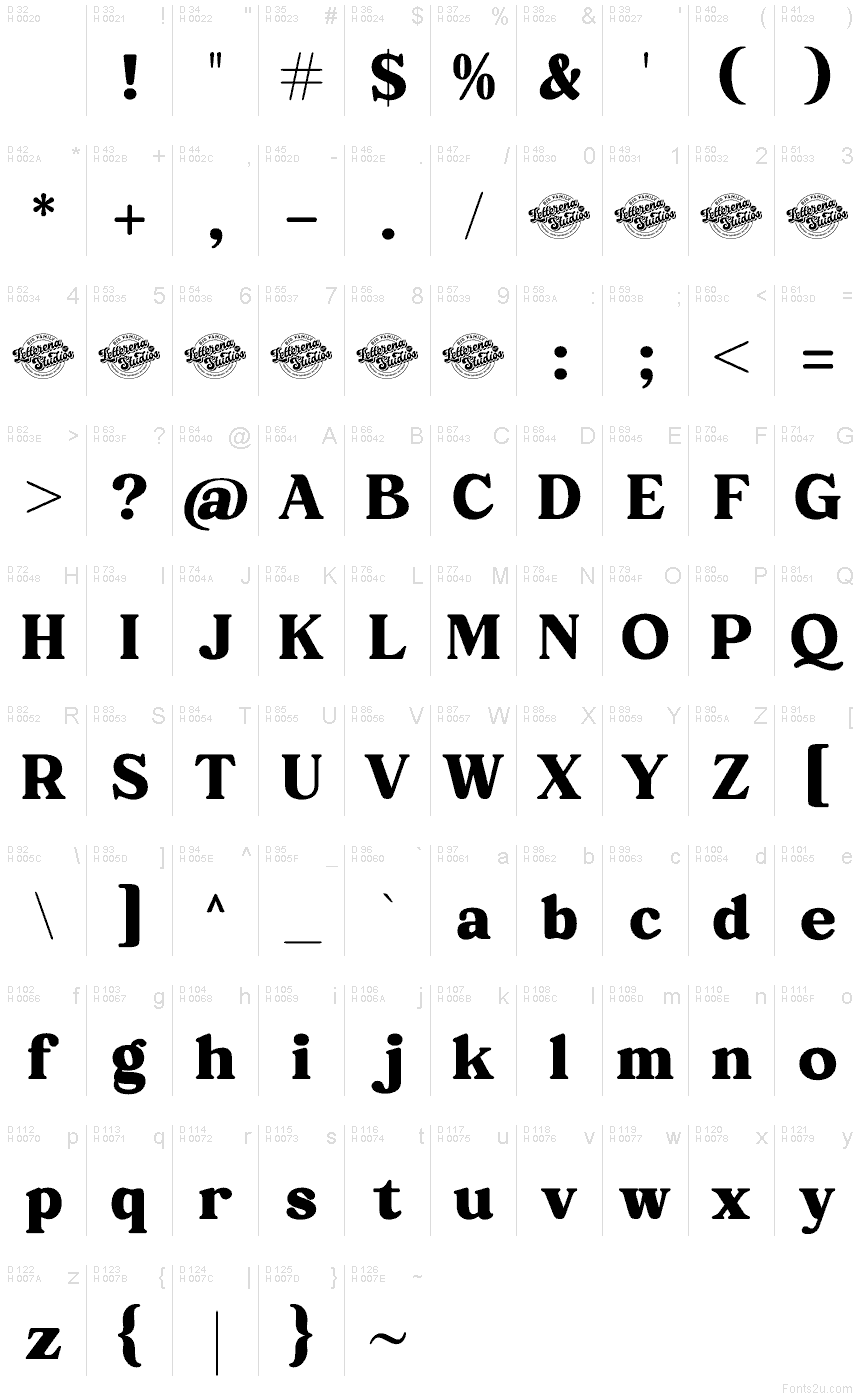
Blastge DEMO VERSION
Blastge font by Letterena Studios is a free serif typeface. Its personality comes from those bulbous curves and soft, inky swells that make each letter feel sculpted rather than drawn. The weight is confident, the spacing compact, and the serifs land with a rounded thud—bold without harshness, expressive without shouting.
Using Blastge, headlines snap into focus and stay readable, even at tight settings. It shines on packaging, poster titles, book covers, magazine nameplates, event flyers, and album art. This free font carries a rich, tactile presence that adds flavor to short phrases and brand marks. Pair it with a calm, neutral sans for body copy, and give it a touch of extra tracking for added breath.